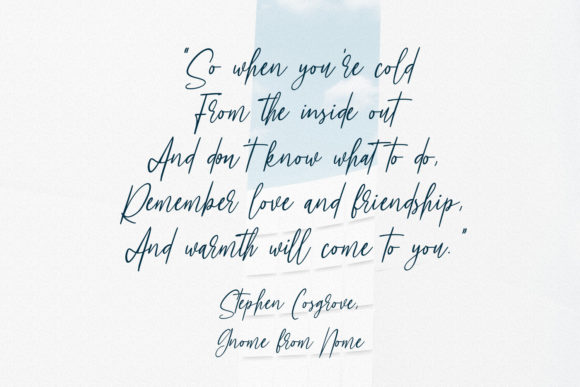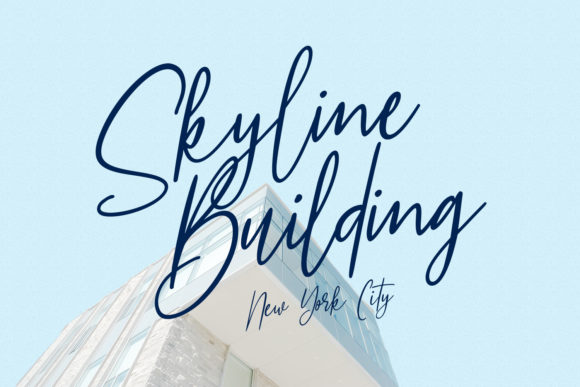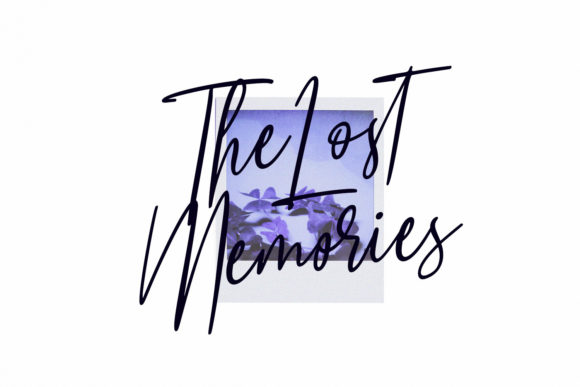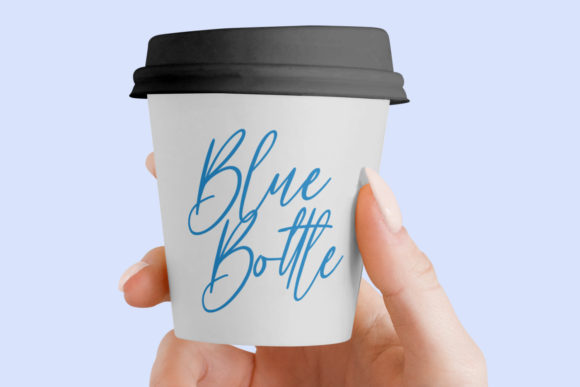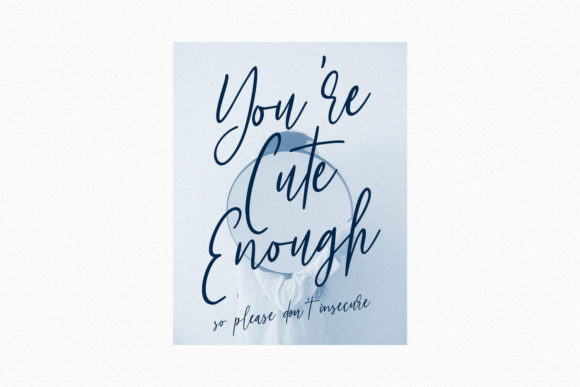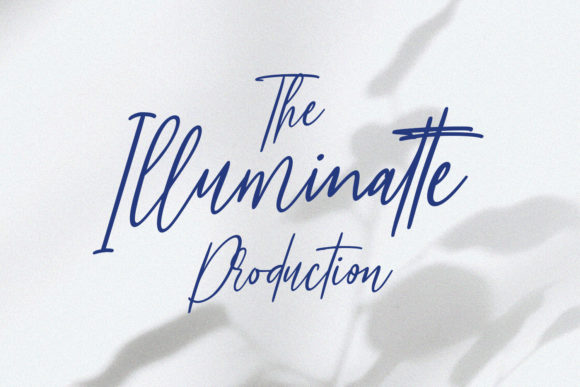
Introduction to Losthouse Font
Losthouse is a beautiful, relaxed, adaptable and fancy script font.
Not too thin and not too thick, balanced and varied, this font was designed to enhance the beauty of your projects .
Key Features of Losthouse Font
Why Choose Losthouse Font?
Losthouse Font offers exceptional quality and versatility, making it a valuable addition to your design toolkit. Whether you’re creating for personal projects or commercial use, Losthouse Font delivers professional results.